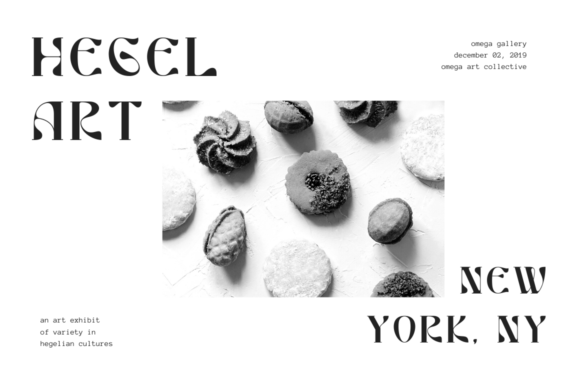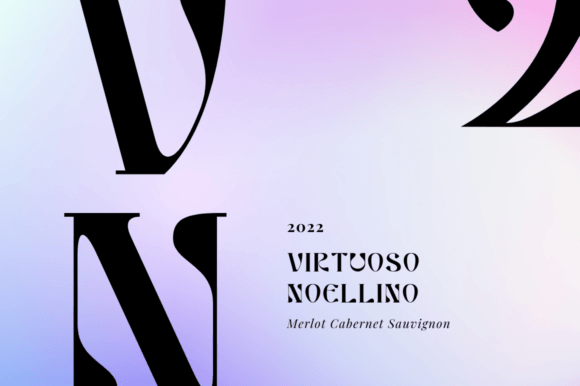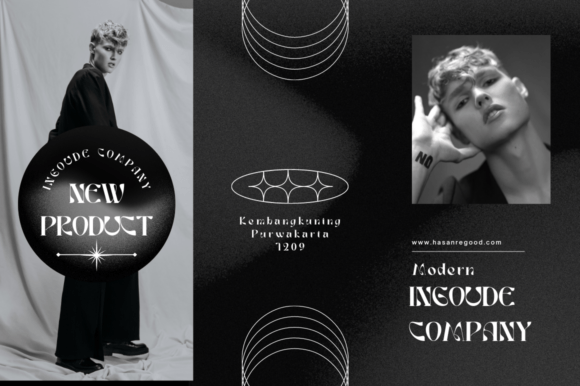
Introduction to Mazreha Font
Mazreha has a strong personality which makes it a perfect choice for display projects.
Perfectly suited for a wide range of applications from branding and logos, to candy and food packages, Mazreha is a bright typeface with a unique appearance .